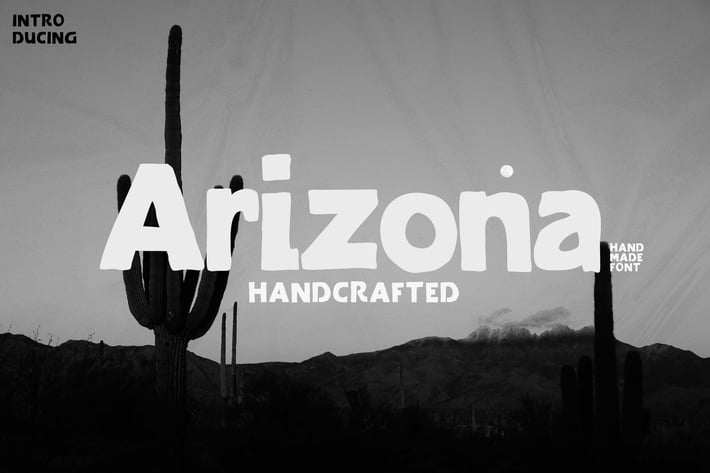
Arizona Family Font
New Present "ArizonaBold, ArizonaOutline, ArizonaShadow"
"ArizonaBold, ArizonaOutline, ArizonaShadow" is a smooth hand marker, modern style marker , which was created to meet the needs of your next design project.
ArizonaFamily, Can used for various purposes. such as the title, logo, correspondence, wedding invitations, letterhead, signage, labels, newsletters, posters, badges, t-shirt, etc.
Comes with upper and lowercase characters, large set of punctuation glyphs, numerals, ligature, and supports international languages. Stylistic alternates for several key lower case characters are also available, accessible in the Adobe Illustrator Glyphs panel.
Standard Character.
multiple language support.